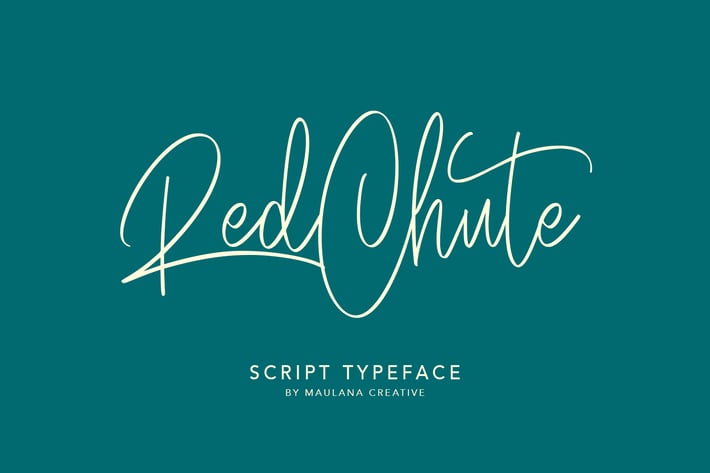
RedChute Modern Script Typeface Handmade Brush
Give your designs an authentic handcrafted feel. “ RedChute” is perfectly suited to stationery, logos and much more.